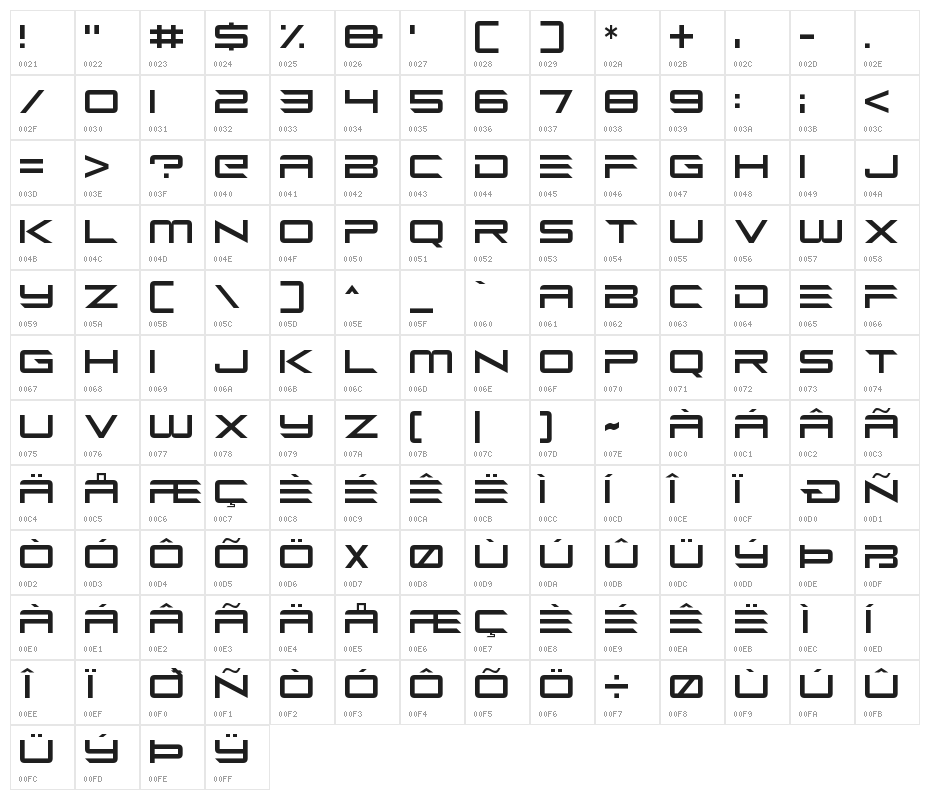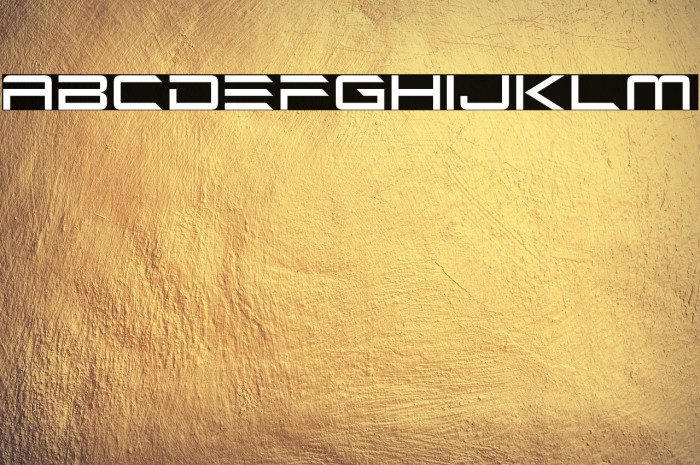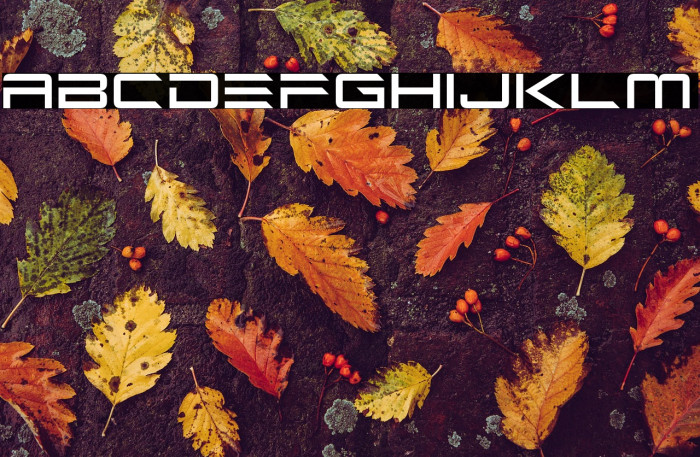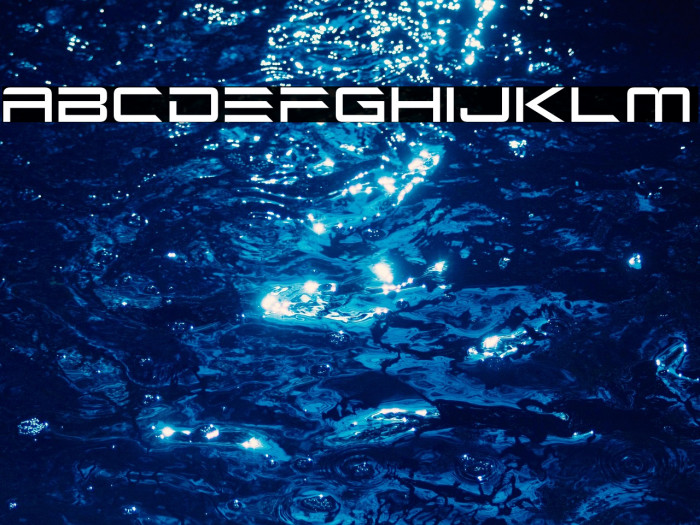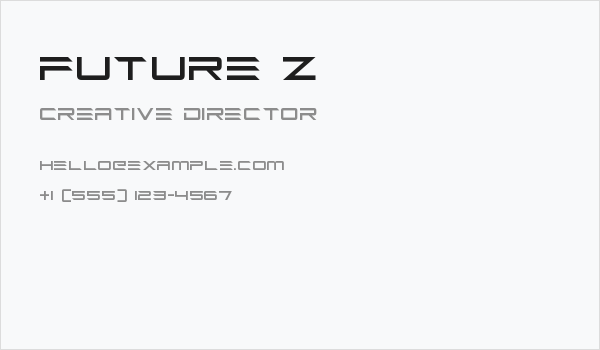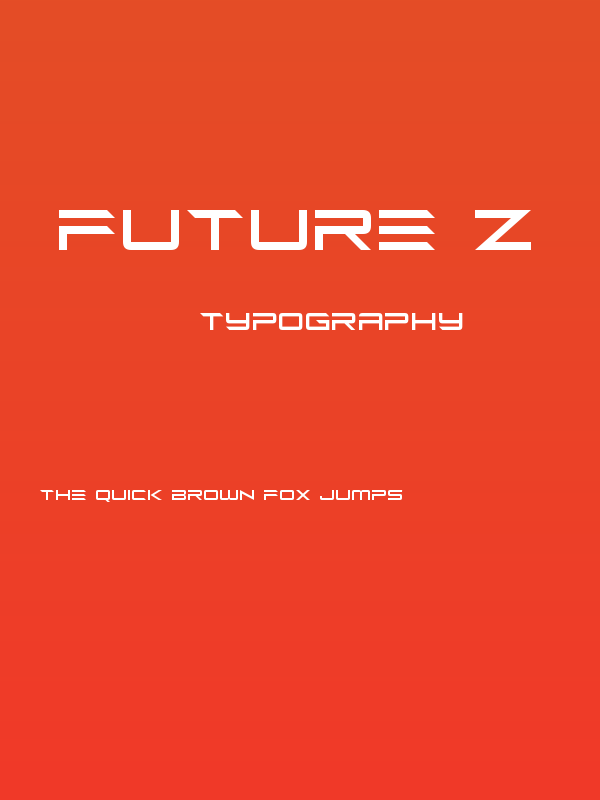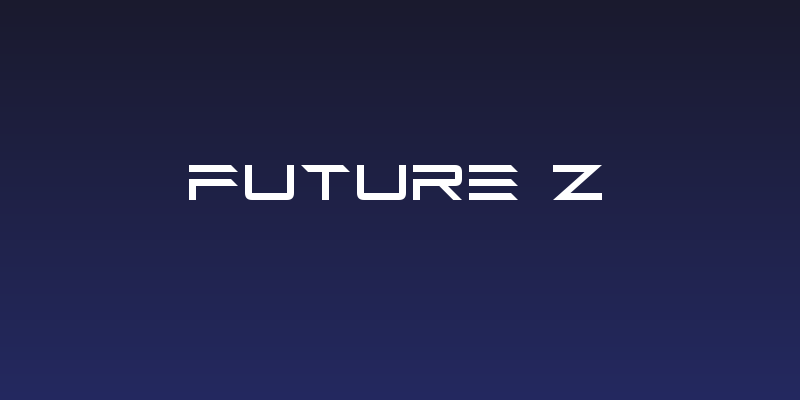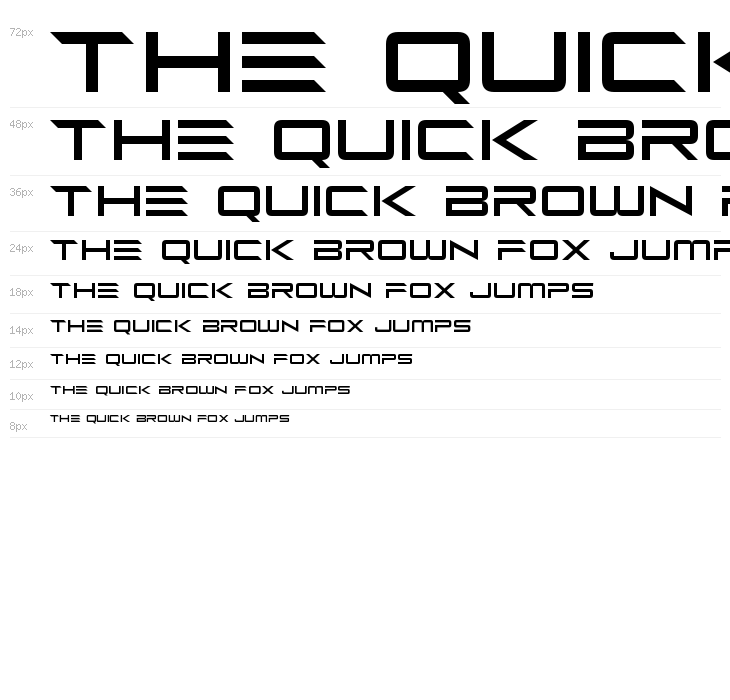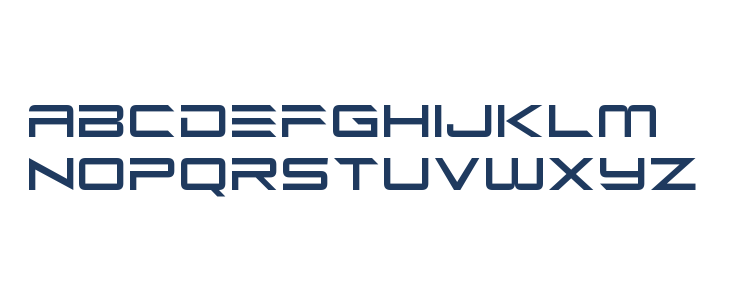
Future Z Font
Future Z Description
This font features a futuristic and geometric design with sharp angles and clean lines. The characters are constructed with a uniform stroke width, giving it a sleek and modern appearance. The uppercase letters have a distinct angular cut, while the lowercase letters maintain a consistent style that complements the uppercase. The numerals are bold and easily readable, matching the overall aesthetic of the font. Special characters are designed to fit seamlessly with the alphanumeric characters, maintaining the same angular and modern look. This font is ideal for projects that require a contemporary and tech-inspired feel.
| Proposed Projects | Ideal for technology branding, sci-fi movie posters, video game titles, and modern digital interfaces. |